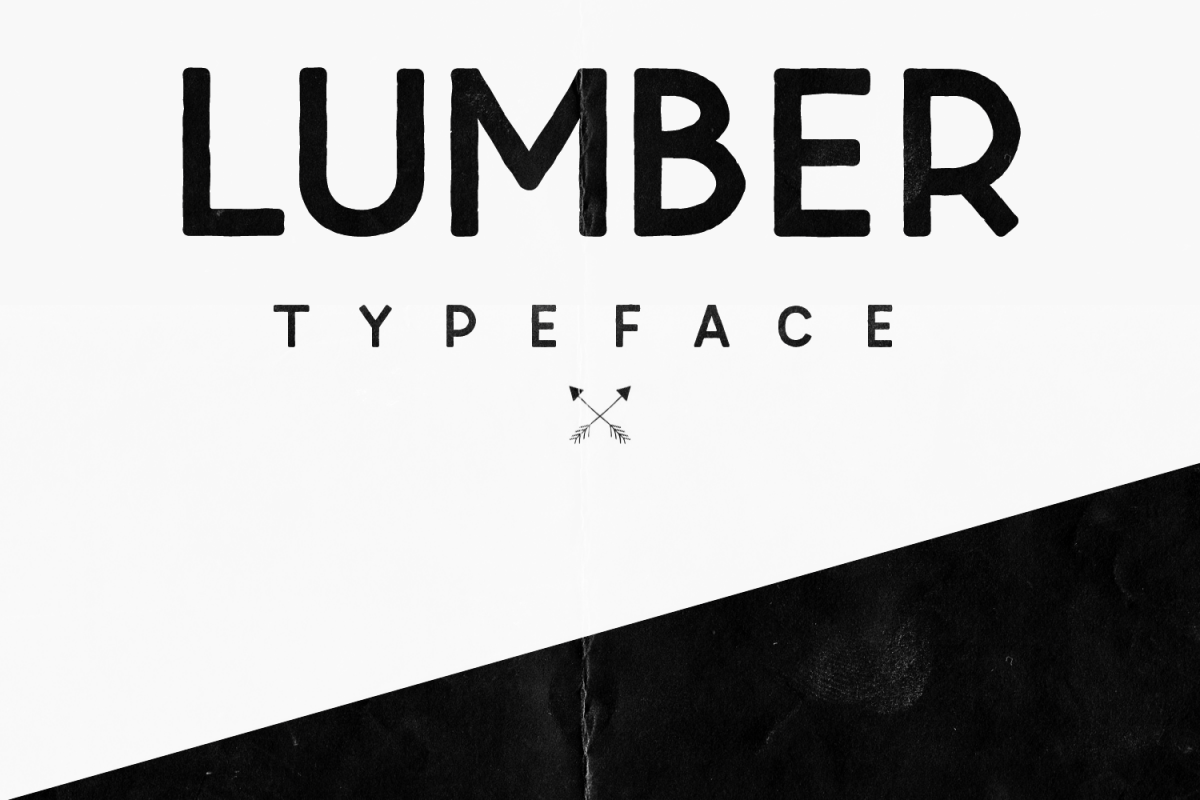
Lumber Typeface
Lumber it’s simple and good font for posters, arts, also for vintage logos or something like that. Available in TTF, can used everywhere.
Include all letters (upper- and lowercase), numbers, and +40 glyphs.